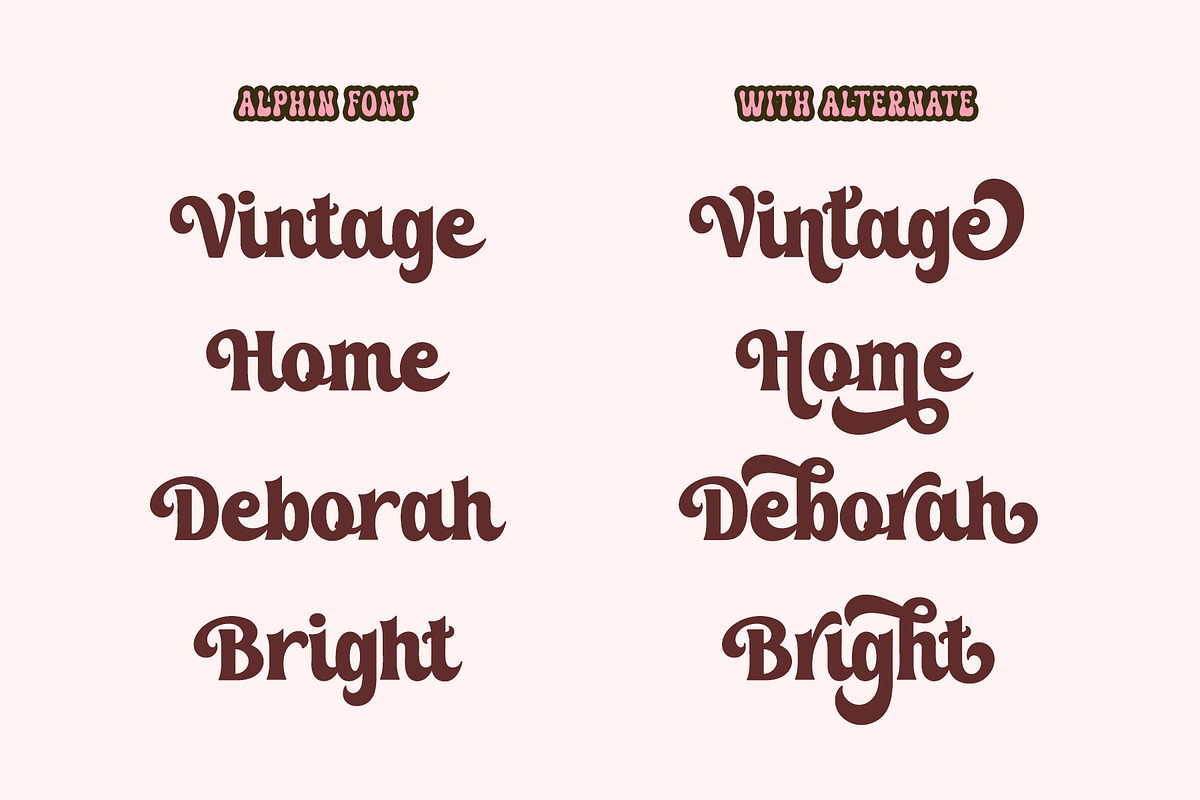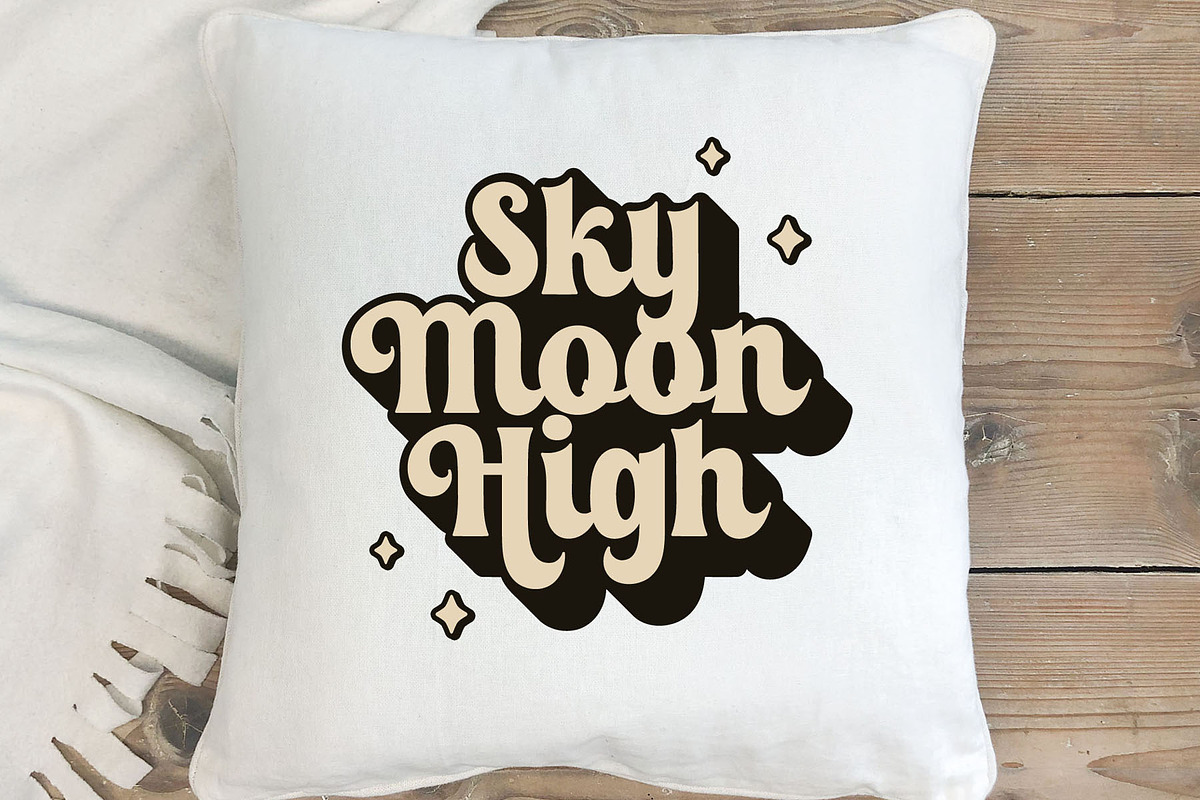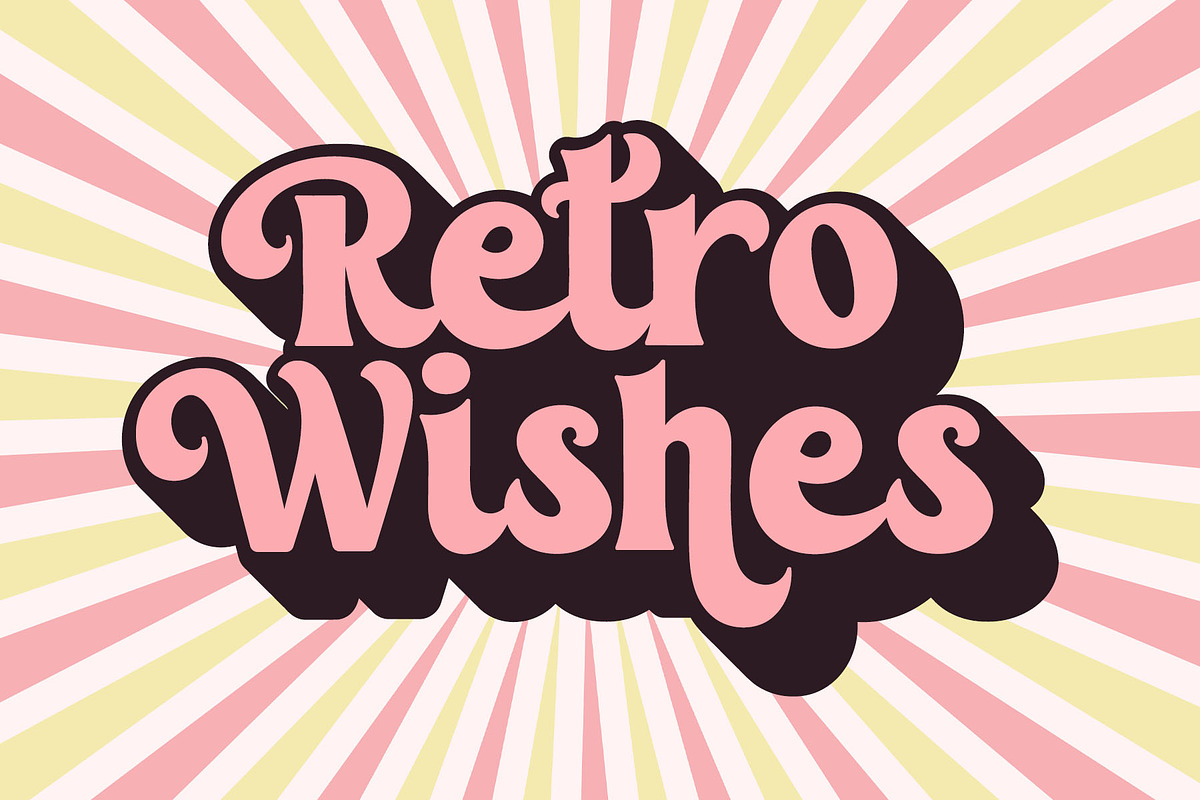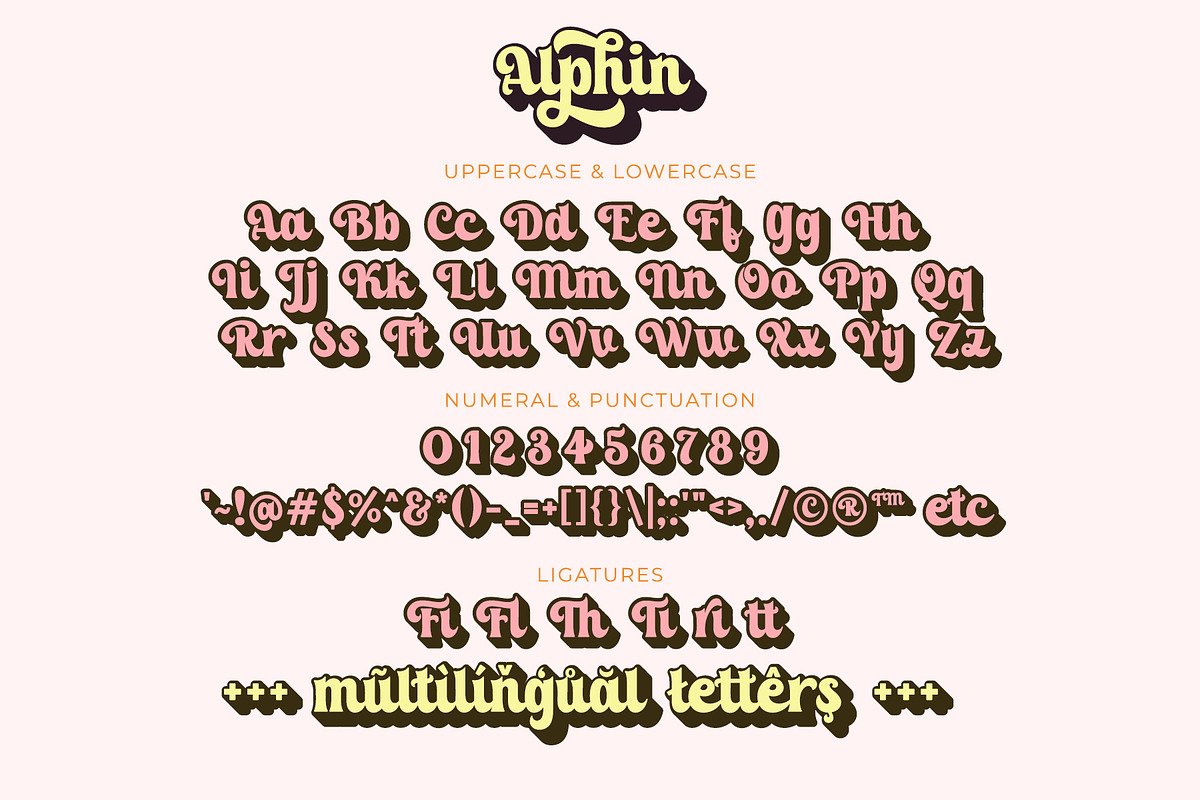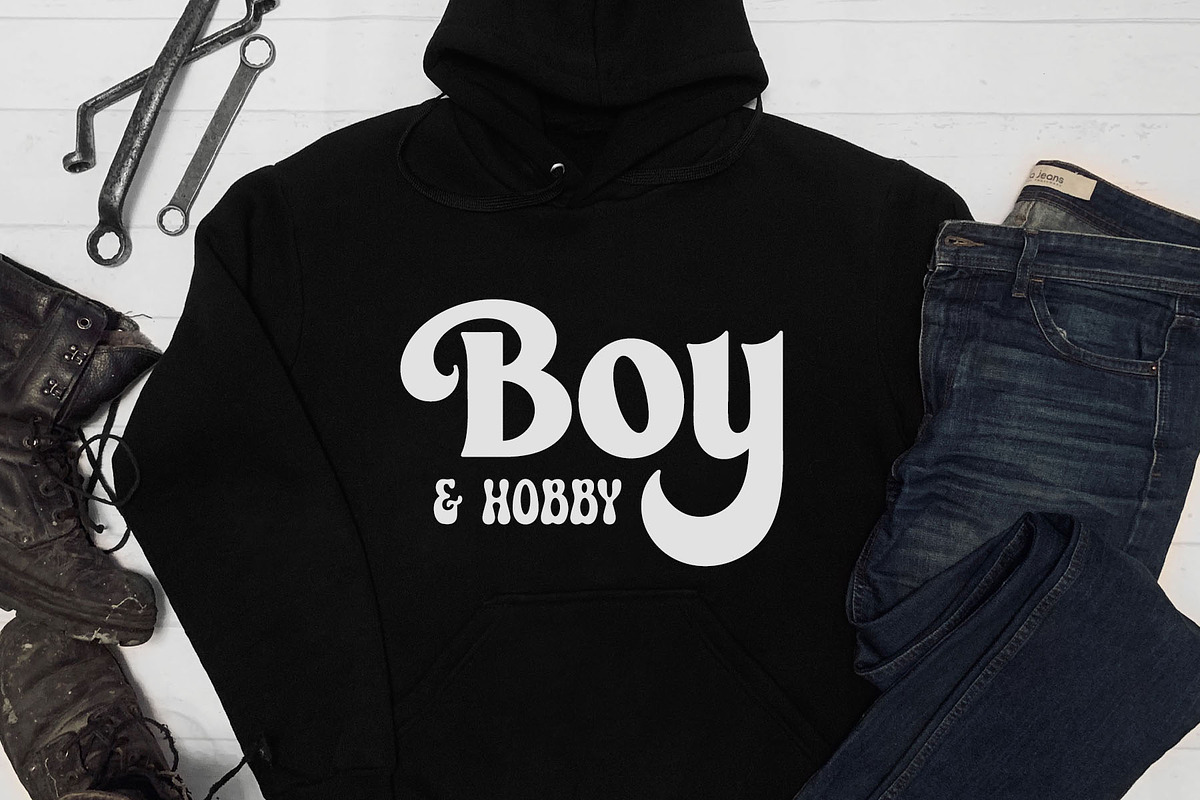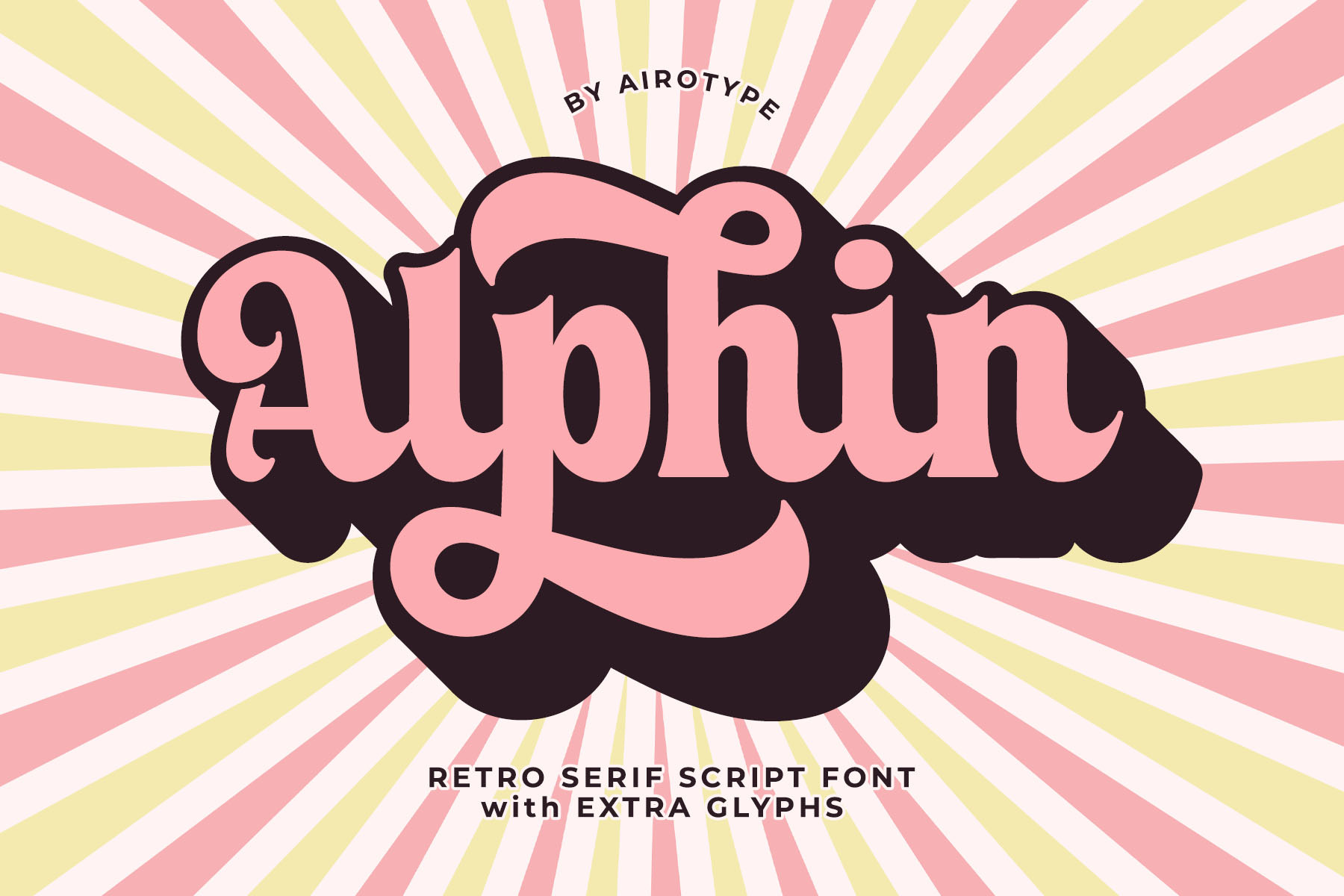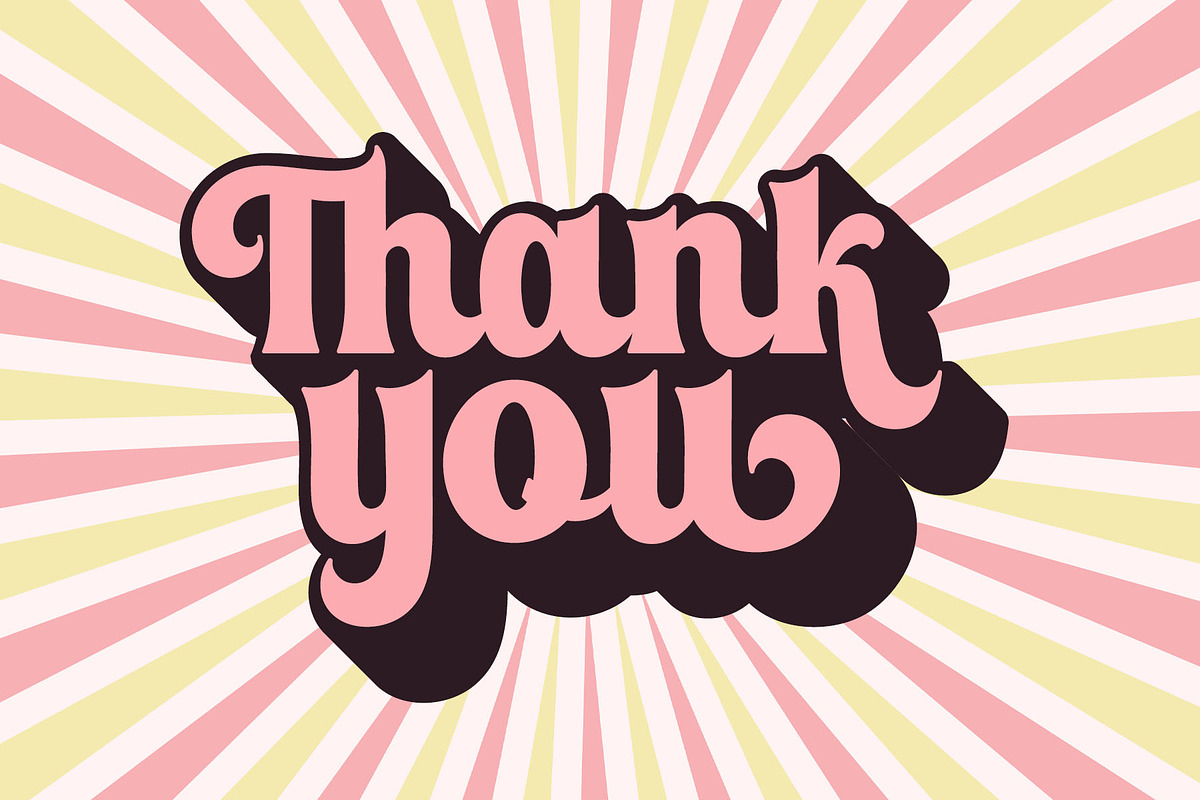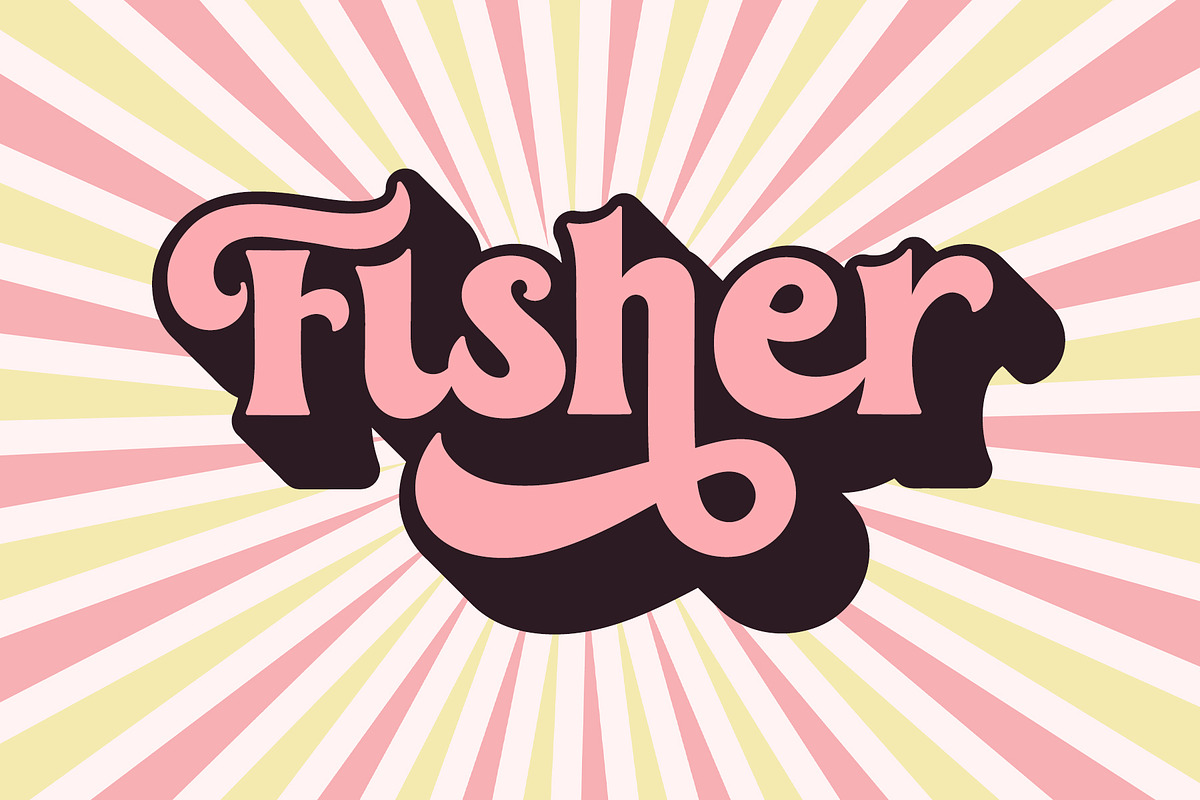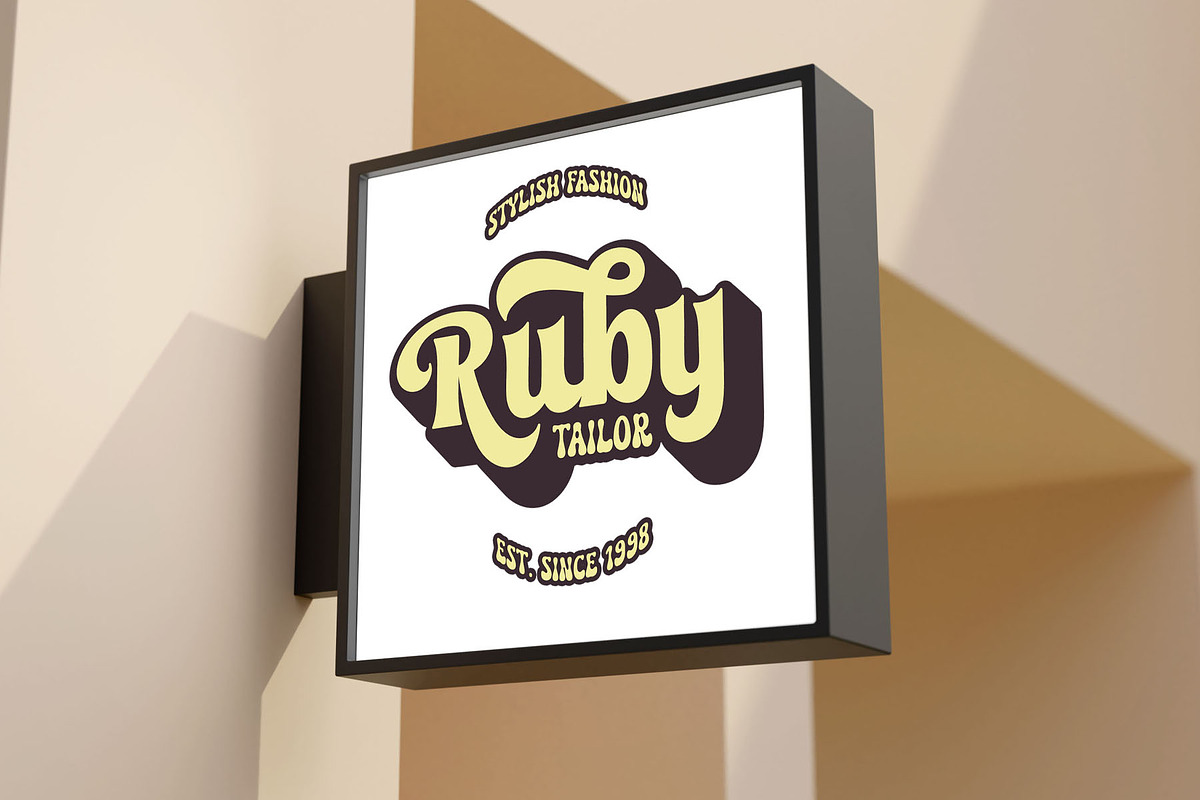
Alphin - Groovy Font Serif Script
Alphin is retro font with vintage and modern elegant feeling. This is script font with serif touch.
It also has extrude style to give shadow or layer for the regular one.
This font is awesome choice for any projects, especially with vintage and groovy style, such as logo, crafting, branding, sticker, sublimation, quotes, and many more.
- Uppercase and Lowercase (include PUA-Encoded extra glyphs)
- Most Multilingual Accent